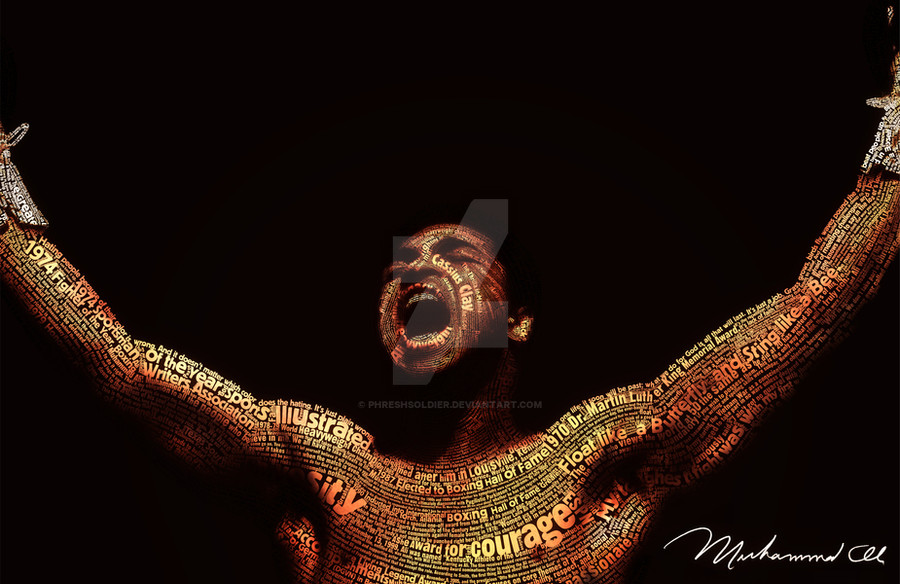
This is a typeface of the greatest of all time Muhammad Ali. Once again another design of the greatest people in the world at what they do, the reason why I choose to do a"Typeface" of the greatest people, because we all have one thing in common, we all know what it takes to get to the top it's passionate, dedication, hard work, not afraid of failure, determination, believing in yourself believing in God and just pushing yourself to be the best no matter what it takes. That's why I make "Typography design" of the greatest people, because they all have great story on how they became great, so why not fill all the success, accomplishment, and all the greatest quotes and greatest matches for Muhammad Ali. This was another God inspiration design, that God put in my head and push me for a week to finish it. So I hope y'all enjoy.P.S. - Took over 20,500 Texts to finish this design.
Is there a tutorial on this sort of thing? Amazing btw!!!!
Is this sort of Design really difficult? I am new to photoshop and have no idea how to do this sort of thing. I really want to do a piece like this though. How long would it take to learn/ complete a piece and how difficult is this? What programme do you recommend?
Well my best advice for you since you new to "Adobe Photoshop" get the feel for it 1st before you start moving to a project that is so big, that it will be to overwhelming for you as a beginner. Because this design really start all in "Adobe Illustrator" and I do my final color correction and "Photoshop". To answer your other questions yes it's time consuming, and the difficult level is not that hard just a long process, and the programs I recommend you using to start a project like this is "Adobe Illustrator" and do all your color correcting and "Adobe Photoshop". If you look below I left a couple of tutorials links that might be quiet helpful for you.
Inspiring and very simplistic in presentation. You need to see no more than the words to feel this.
This is a GREAT WORK OF ART !! do you know of ant basic tutorials that could get me started in this direction ????
Very interesting. "Float like a butterfly and sting like a bee" stood out for me.
Download the bigger version and you will be surprise what's more in there will stand out to you, because I try my best to make it very readable and understandable. Thank you much appreciate.
Thats beautiful I'm curious how you did the colours?
brilliant just outstandingly speechlessly brilliant!